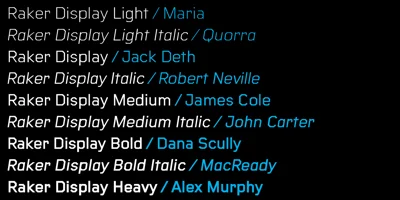
Raker Font
Raker Font excels in modern applications including website headers, mobile app interfaces, corporate presentations, business cards, magazine layouts, advertising campaigns, signage systems, and contemporary branding projects that demand clean, professional typography with strong visual impact.
What makes Raker Font exciting is its perfect balance between contemporary minimalism and functional versatility. This exceptional typeface delivers crisp, clean lines with optimized spacing that ensures excellent readability across all platforms, from digital screens to print materials, making it an indispensable tool for modern designers seeking professional excellence.
The Raker Font family encompasses multiple weights ranging from thin to black, including italic variations for each weight. This comprehensive collection provides designers with extensive typographic flexibility, allowing for sophisticated hierarchy creation and seamless integration across diverse design projects and brand applications.
Professional designers consistently choose Raker Font for its reliability and aesthetic appeal in commercial projects. This versatile typeface adapts effortlessly to various design contexts while maintaining its distinctive character, ensuring brand consistency and visual coherence across different marketing materials and digital platforms.
The font's geometric precision and carefully refined details make it particularly suitable for tech companies, startups, and forward-thinking brands. Raker Font combines modern sophistication with practical functionality, offering designers a dependable solution for creating compelling visual communications that resonate with contemporary audiences and enhance overall brand perception.